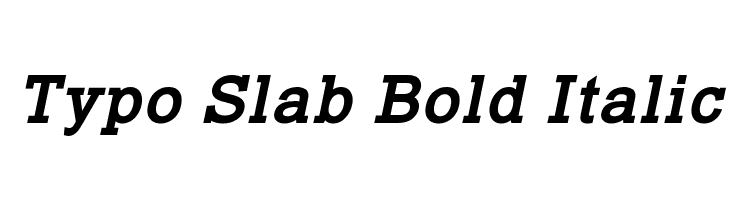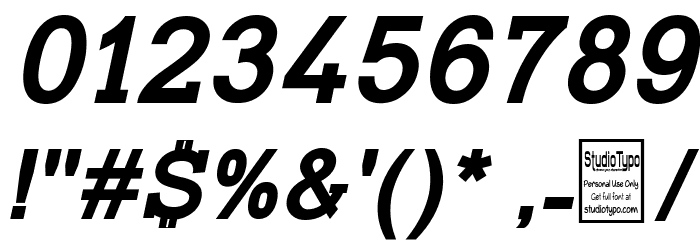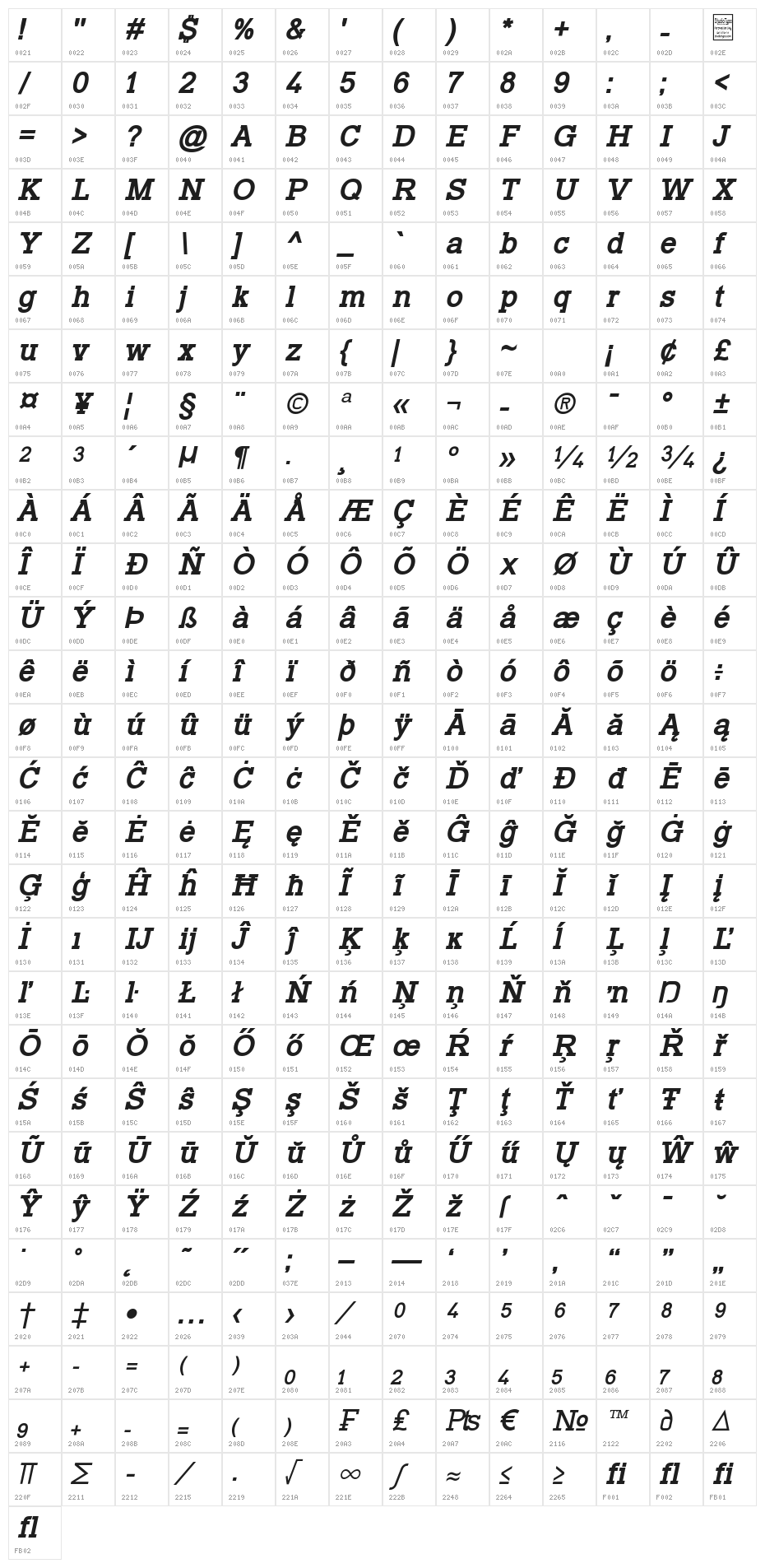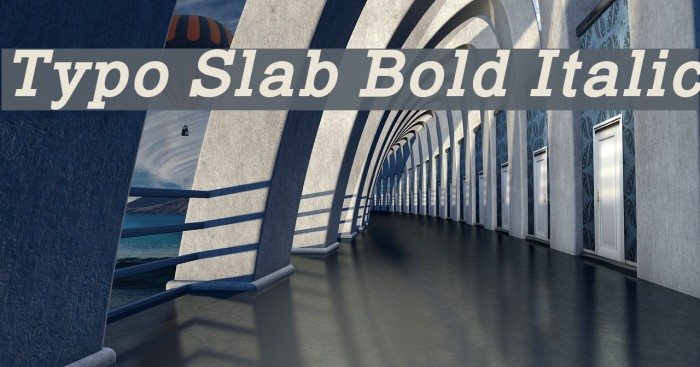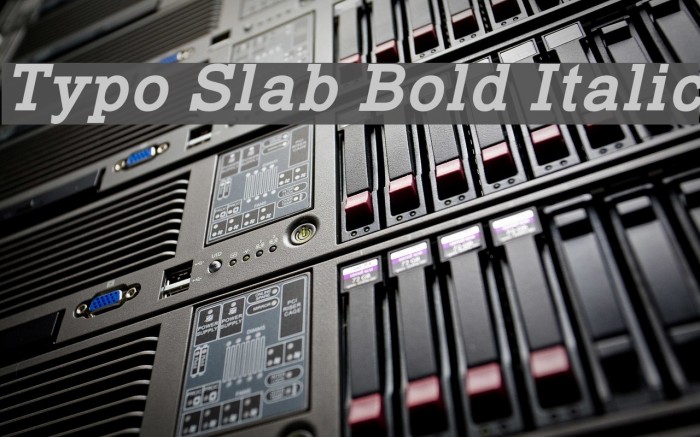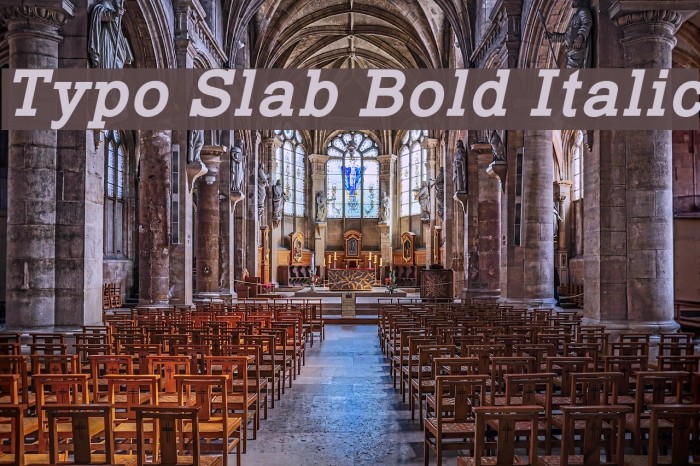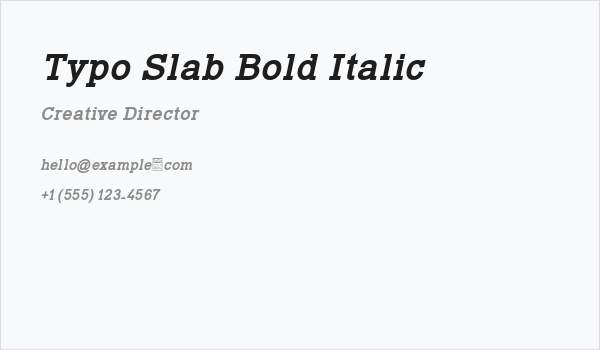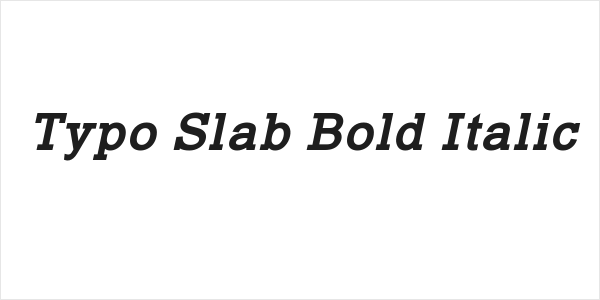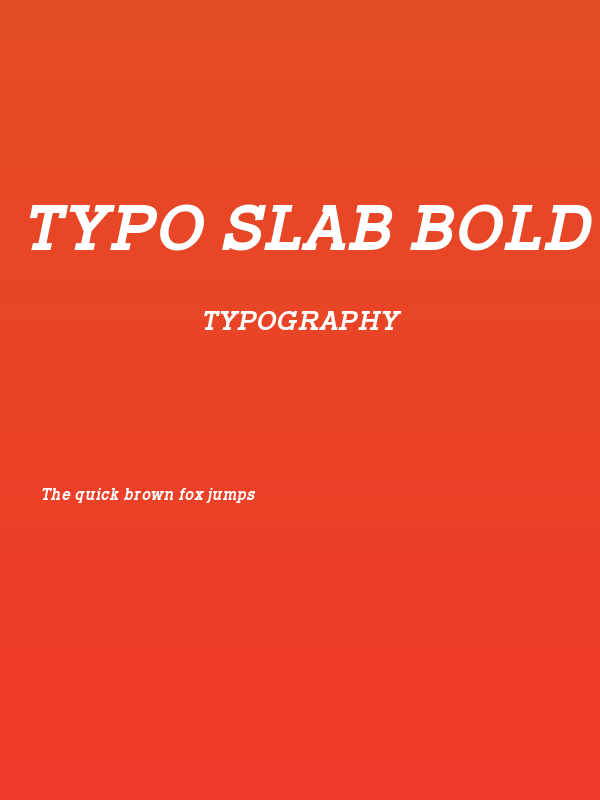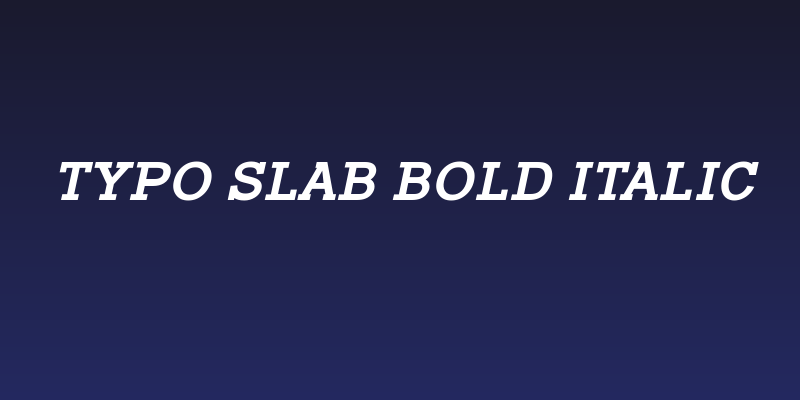
Typo Slab Bold Italic Font
Typo Slab Bold Italic Description
This font features a bold and italicized style with slab serifs, giving it a strong and assertive appearance. The characters are well-defined with thick strokes, providing a robust and impactful look. The italic slant adds a dynamic and forward-moving feel, making it suitable for attention-grabbing headlines or titles. The numbers and special characters maintain the same bold and italicized characteristics, ensuring consistency across all glyphs. The overall design is modern yet retains a classic touch due to the slab serif elements.
| Proposed Projects | Ideal for headlines, posters, branding materials, and any project requiring a bold statement. |